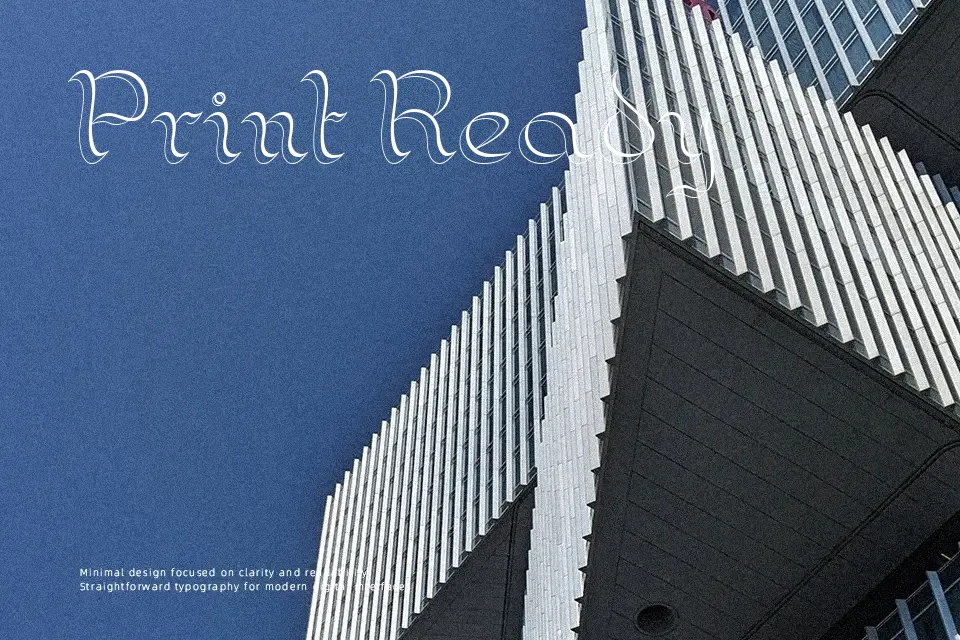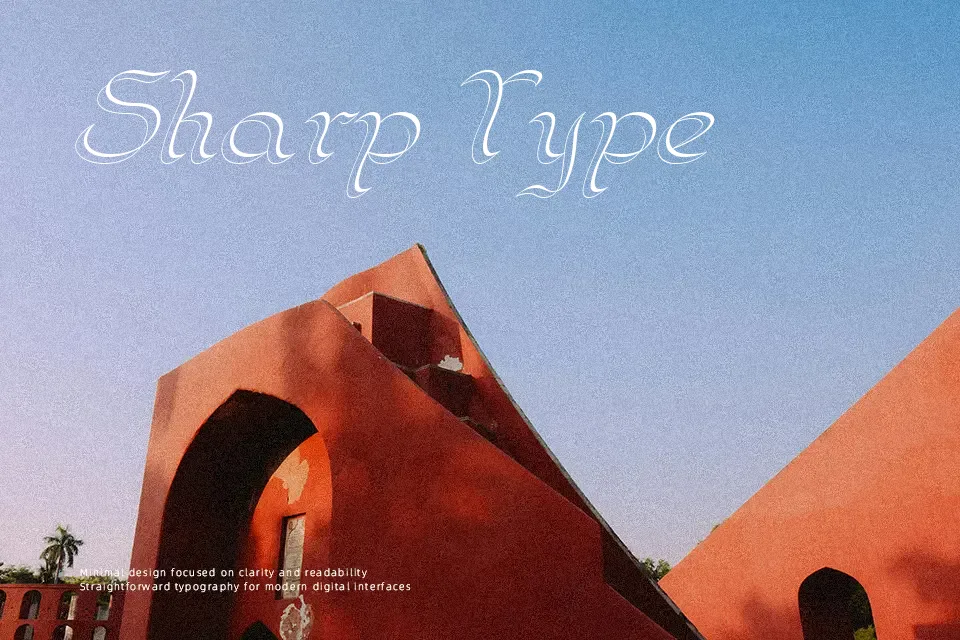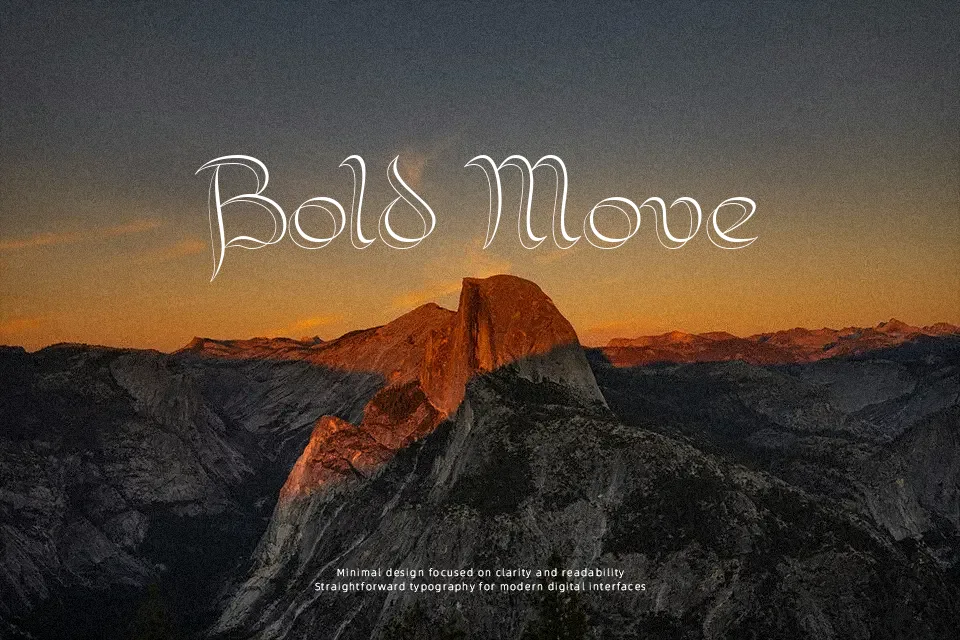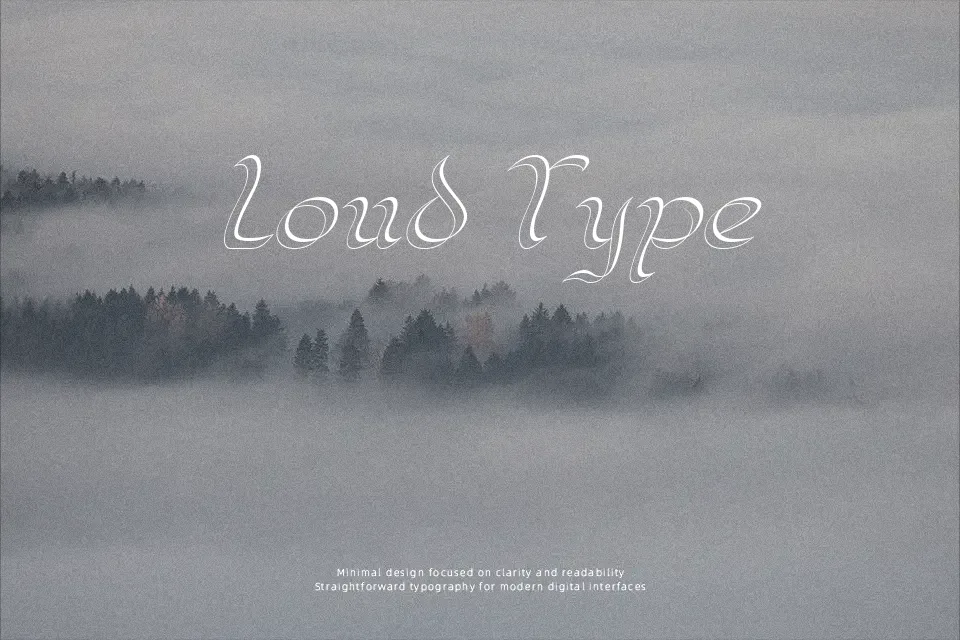
Calami Font
Calami is a calligraphic script drawn from historical penmanship exercises, then carefully redrawn into a regular upright style. Strokes show a clear thin‑to‑thick contrast from the double‑pointed nib, so curves feel fluid while verticals stay firm. The spacing is moderately tight, which helps short words and names lock together in an elegant ribbon, but dense paragraphs can feel busy. In practice, it shines on titles, wedding stationery, certificates, restaurant menus, and logos that want a traditional yet personal voice rather than a neutral sans serif. I would avoid using it for long body text, UI, or very small captions, where the calligraphic details quickly turn into visual noise.
Wedding invitations and stationery
Certificates, diplomas, and formal documents
Logotypes and wordmarks needing a calligraphic feel
Menu titles and event posters with a classic tone
Long body text or extended reading
Small UI labels or mobile app interfaces
Highly modern tech or minimal branding
Dense data-heavy layouts and dashboards
Perfect for headline, invitation, and logo, with a artistic and calligraphy style.